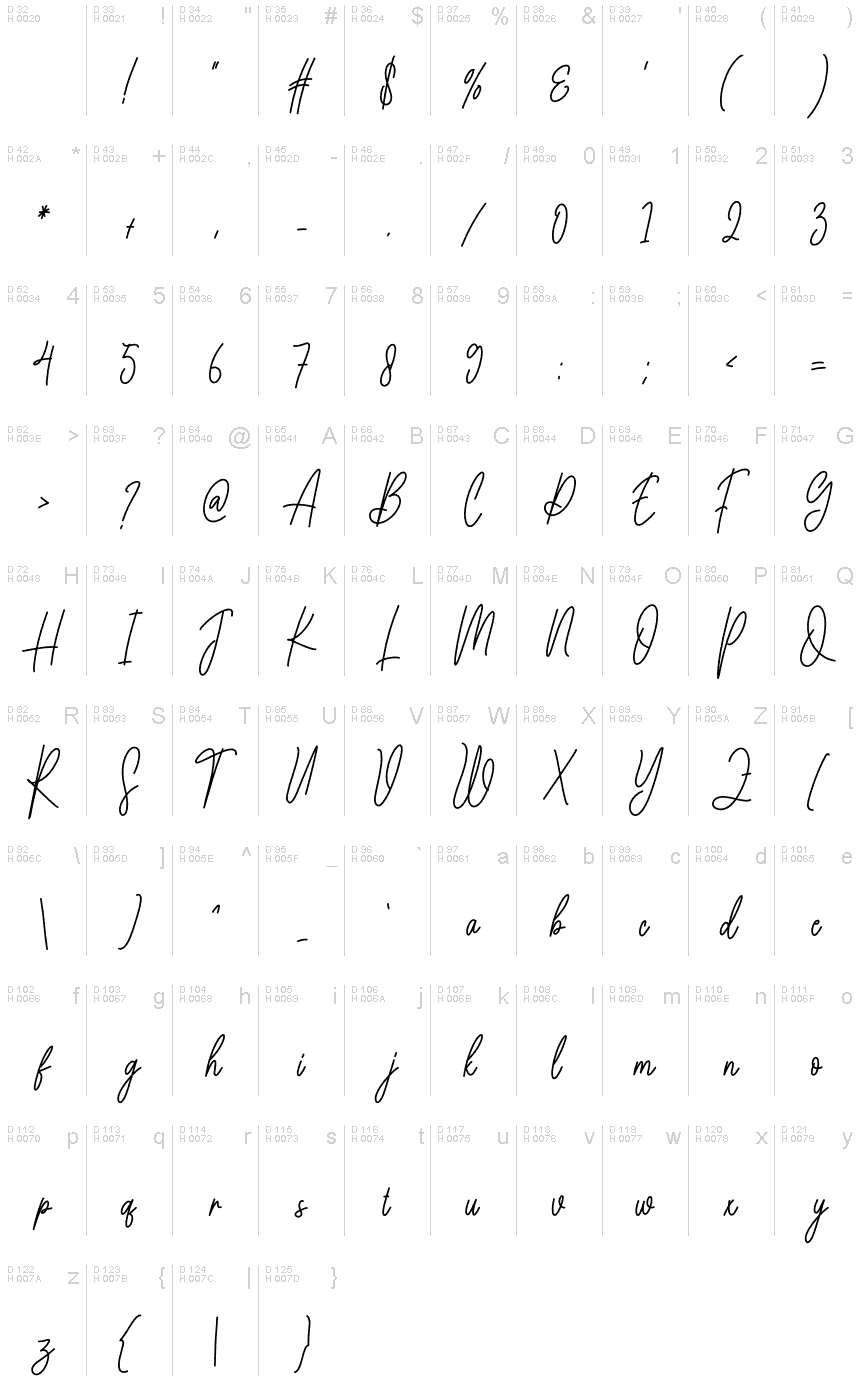
Ramadan Signature
Ramadan Signature, designed by Scratchones, is an exquisite signature and handwritten font that adds a touch of elegance and personalization to any project. With its extra-light weight and condensed width, this font exudes sophistication and refinement.
Perfect for wedding invitations, elegant logos, high-end branding materials, or even personalized stationery. Its graceful curves and unique strokes capture the essence of individuality and style, making it an ideal choice for any project that requires a personal touch.
Let Ramadan Signature elevate your designs with its timeless charm and refined aesthetic.